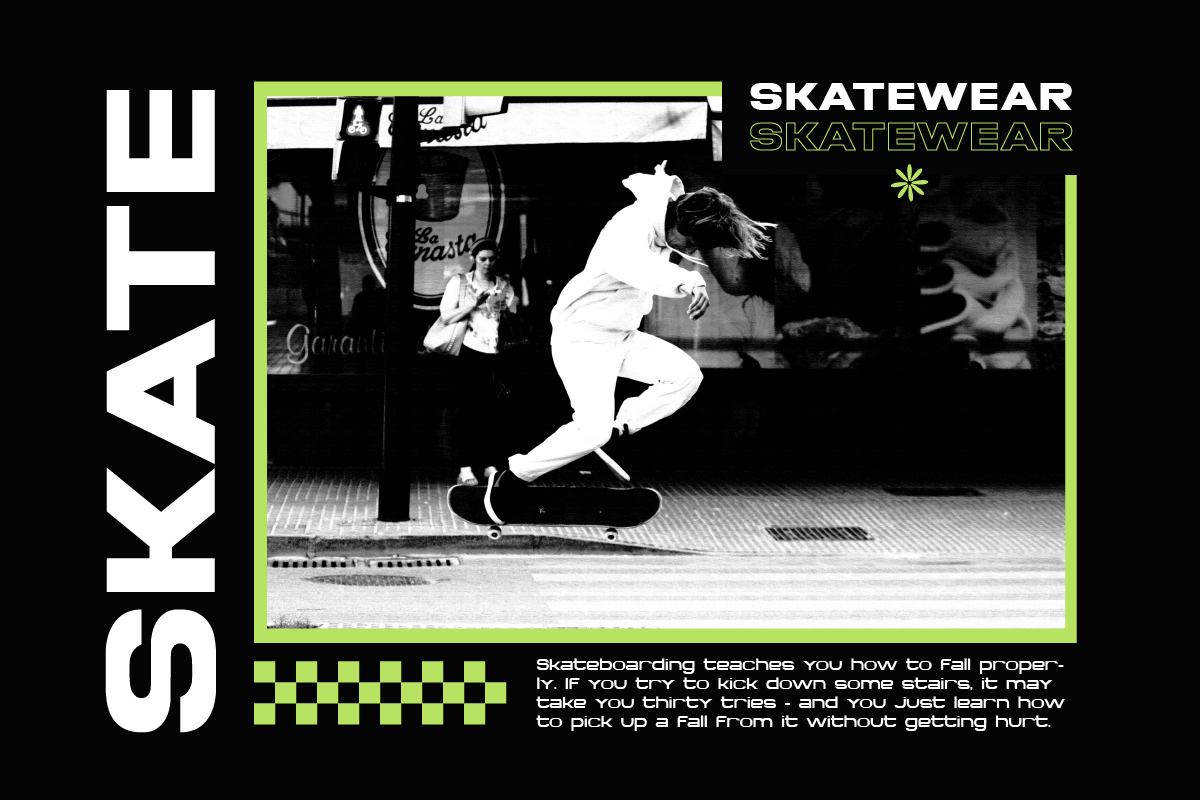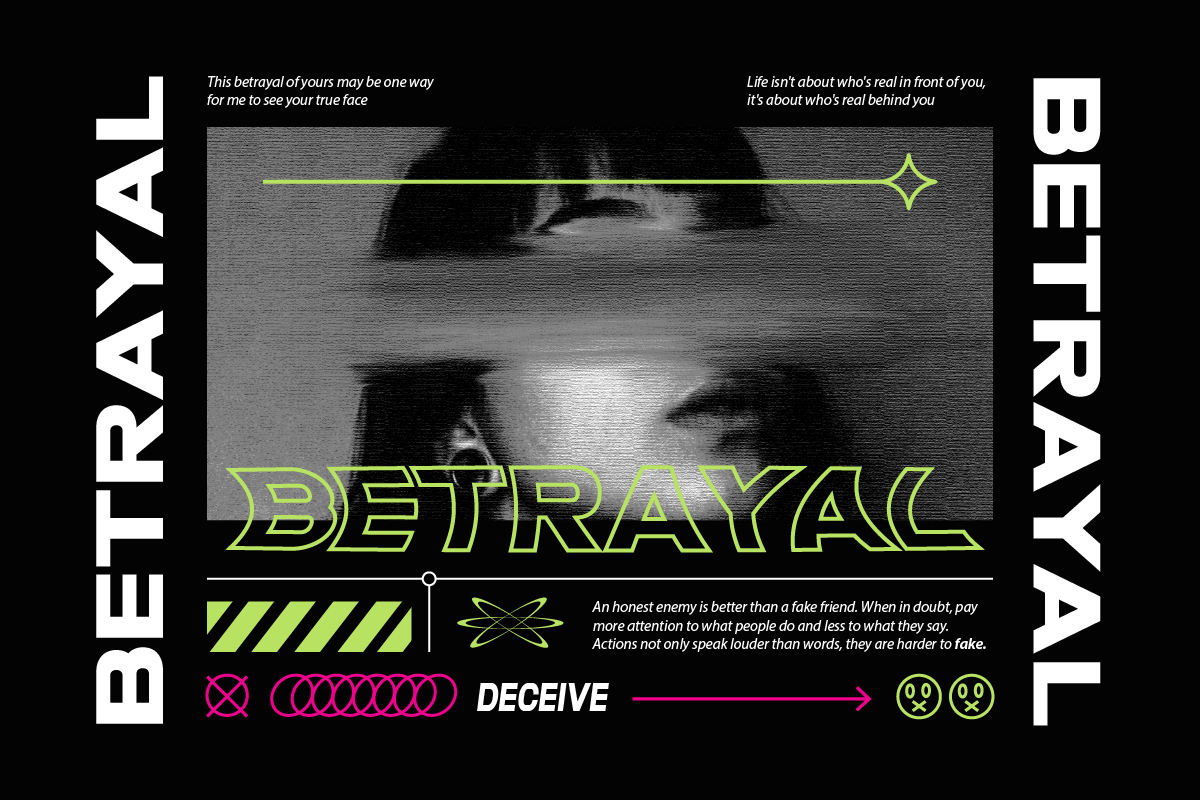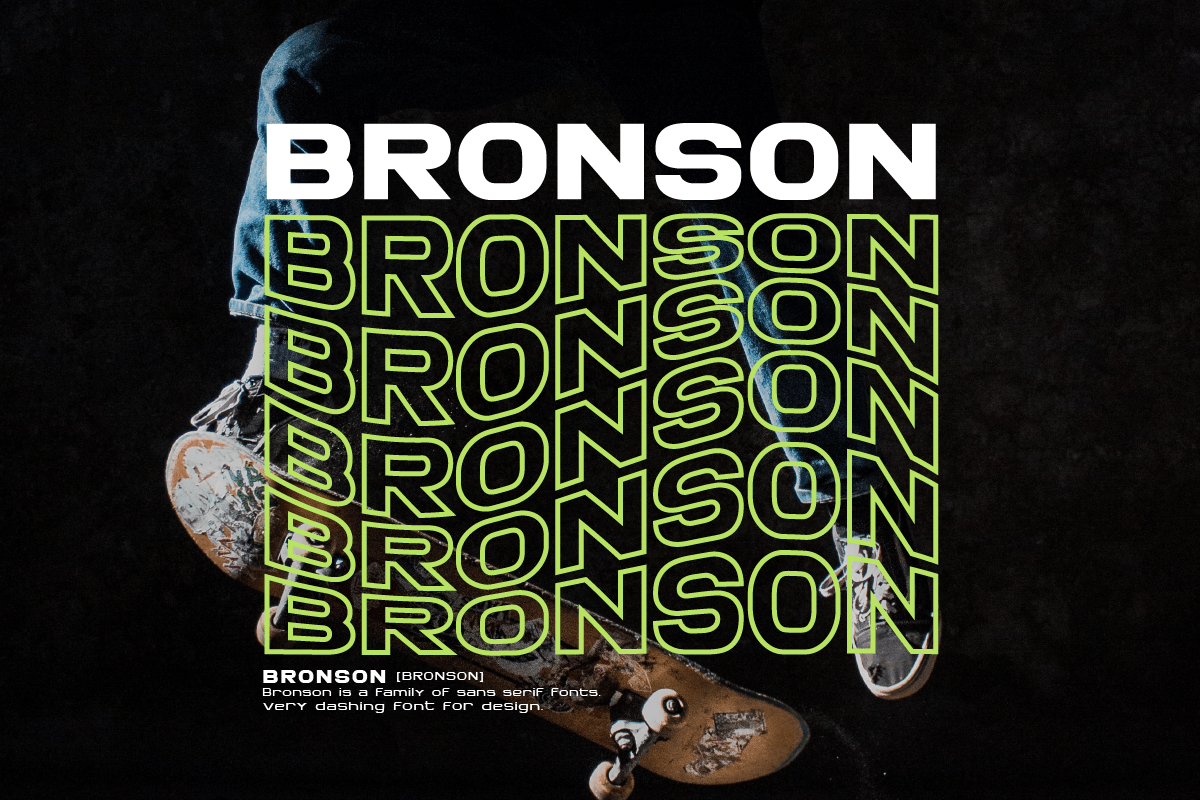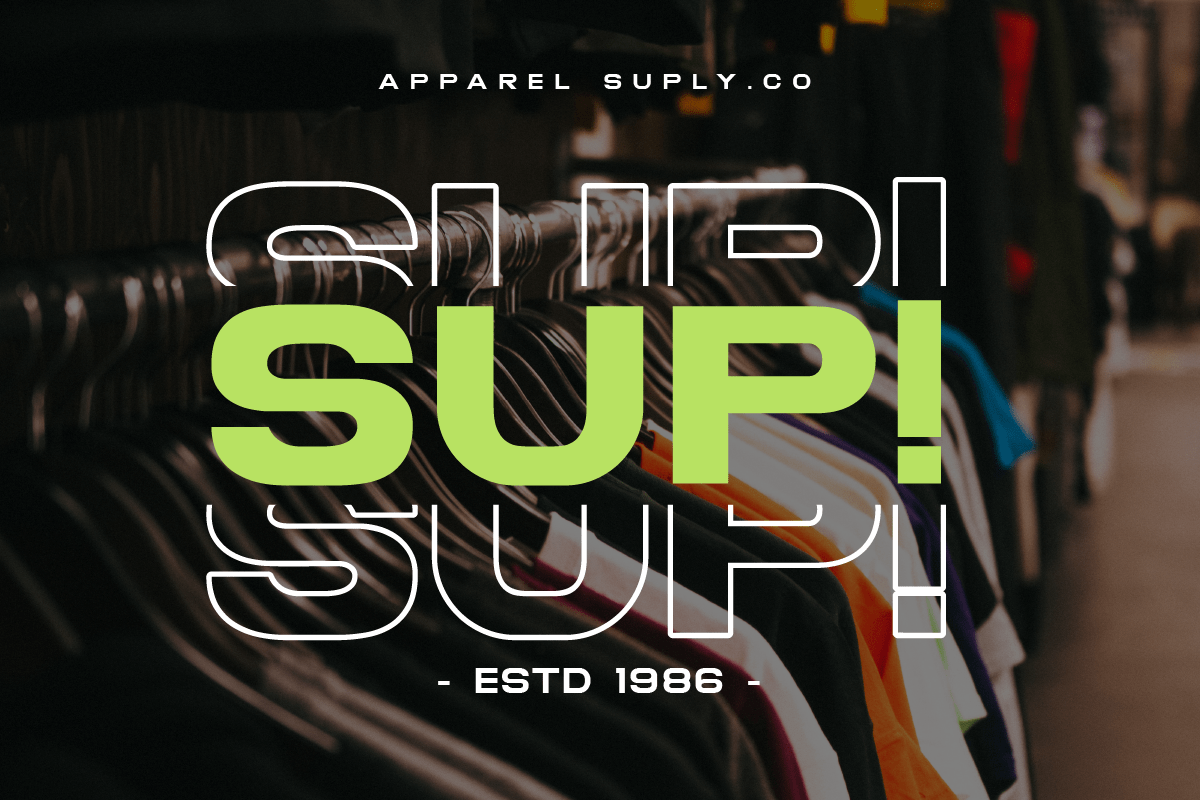
Bronson Font
Bronson Sans Serif Font
This is a sans serif family that comes in 7 weights. The Bronson font has a very bold body, but still has high contrast. This font looks very modern when paired with contrasting design colors. This font is impressive and features a clean and elegant font, professionally shaped, and as a result, it will easily match a variety of creations that require a different touch. Add it with confidence to your projects, and you’ll love the results. This typeface is perfect for elegant logos, branding, promotions, book covers, magazine layouts, or simply as a stylish text overlay onto any background image.